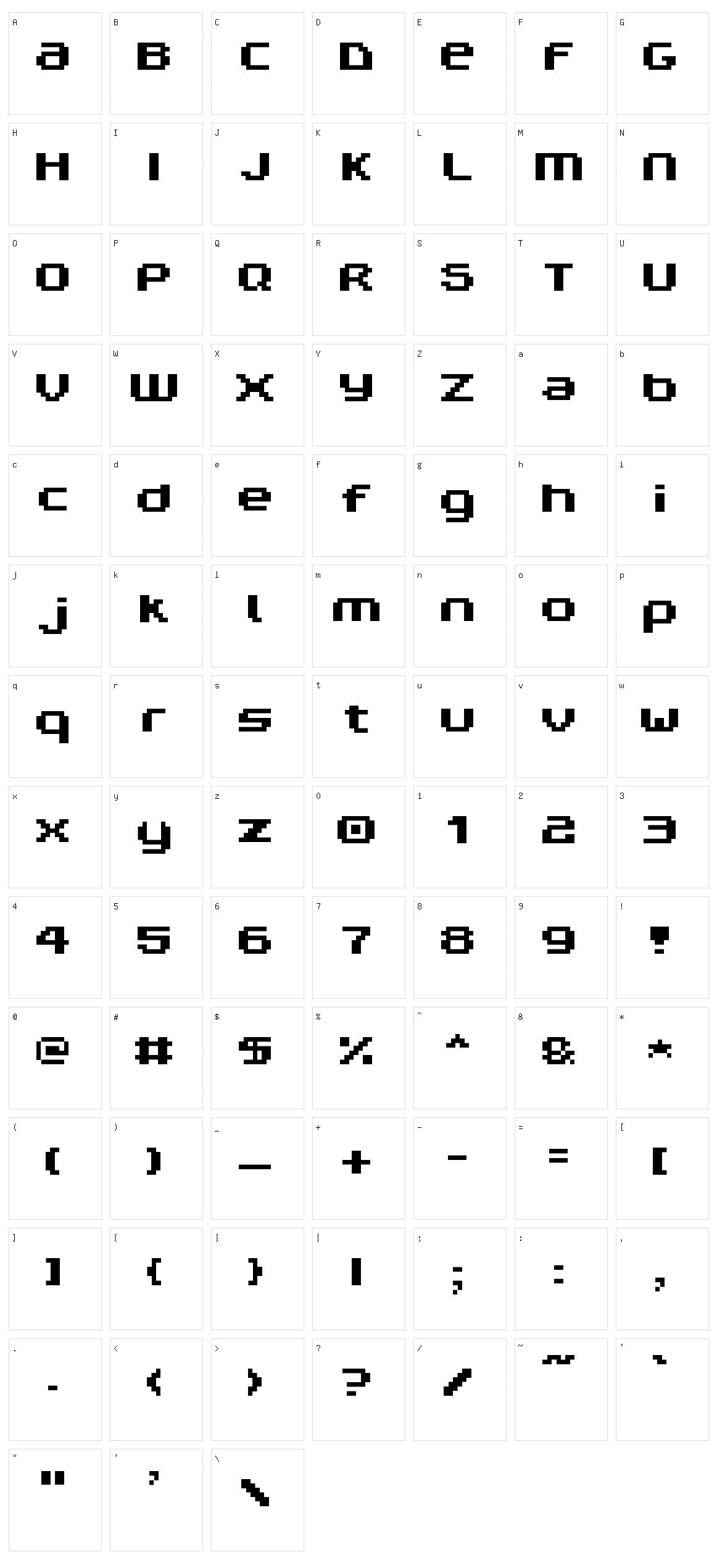
V5 Prophit Non
Designed by: vFive Digital
++ Prophit (NON) ++
For screen use, set at 10pt,or any multiple
of 10. Turn antialiasing off. Set tracking
to zero(tight) or 100 (or multiples of)
for best results. All-uppercase seems to
work best.